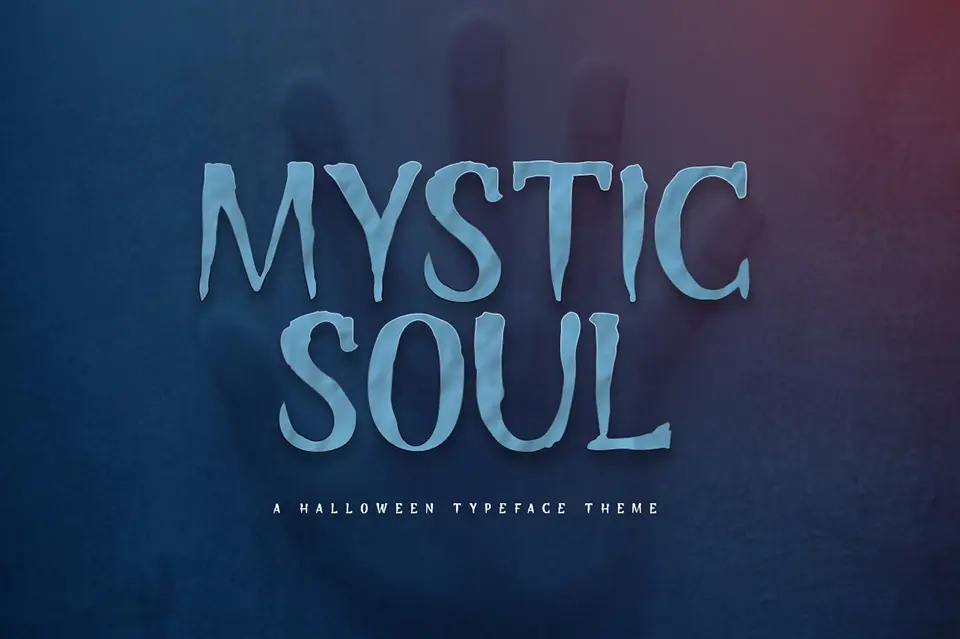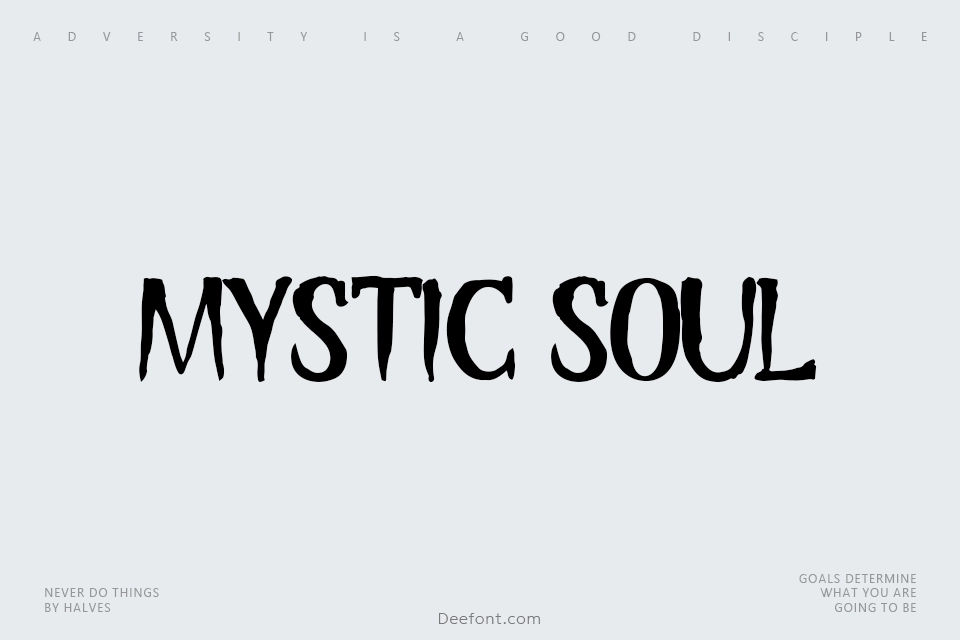
Mystic Soul Font
Mystic Soul is a hauntingly beautiful display typeface that captures the essence of Halloween and dark fantasy themes. Designed with an eroded, spine-chilling aesthetic, this font features eerie letterforms perfect for spooky invitations, horror-themed posters, bone-chilling book covers, and festive party decorations. With its supernatural appeal and striking visual impact, this typeface brings an extra dose of frightful delight to typography projects, allowing designers to bewitch audiences with its spellbinding design.